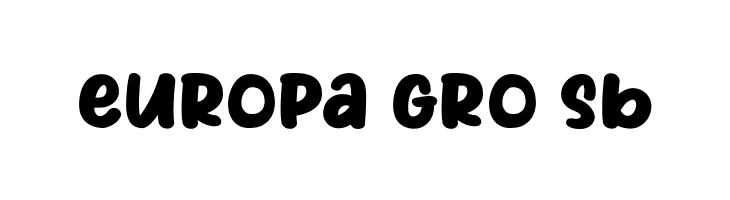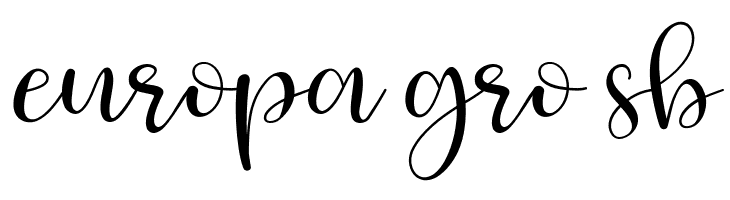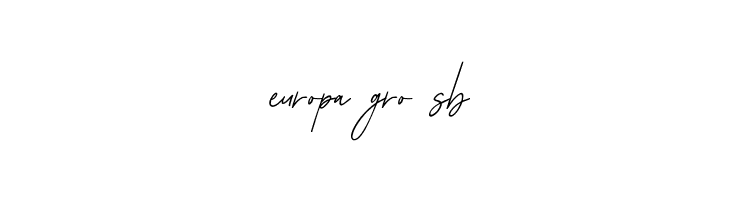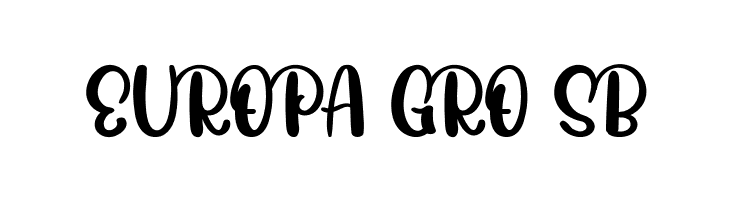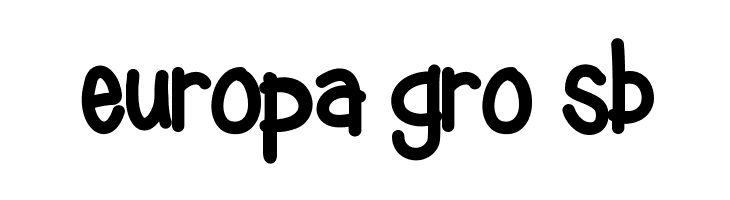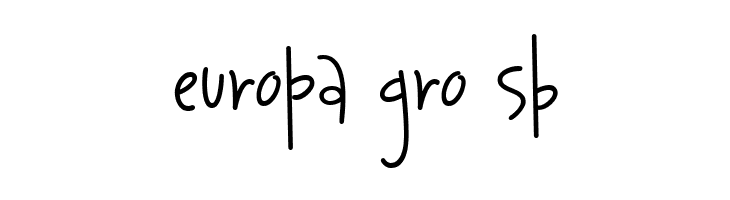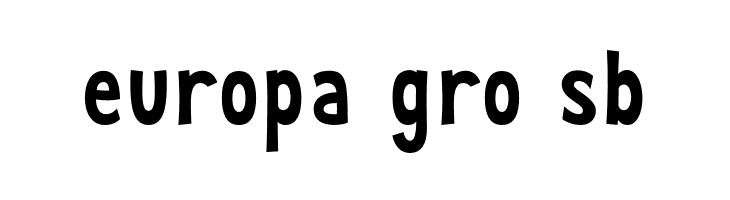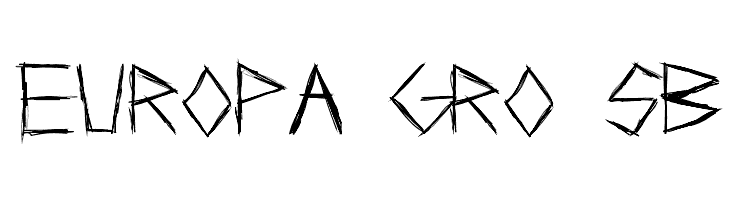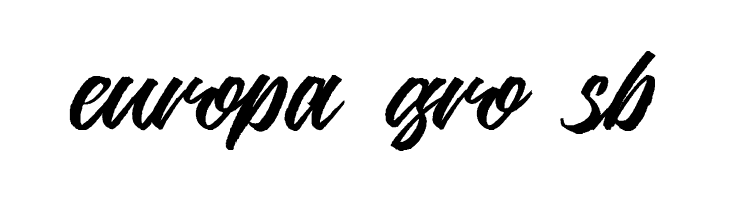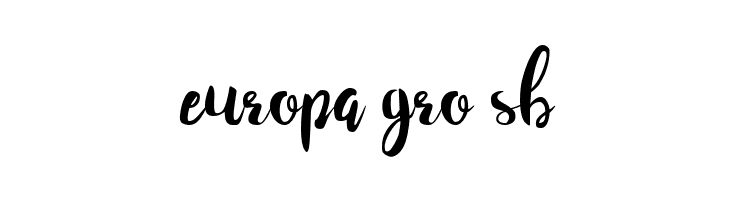
A casual, handwritten font with smooth, flowing lines and a playful touch.
A dynamic script font with calligraphic elegance and a handcrafted feel.
A lively script font with elegant flourishes and smooth, continuous strokes.
A playful, bold font with rounded, bubbly characters.
An elegant, whimsical script font with flowing, interconnected letters and playful loops.
A modern, handwritten font with a casual and flowing style.
A bold, playful font with rounded, hand-drawn characters.
A playful, bold font with rounded characters and a hand-drawn feel.
A bold, playful script font with a handwritten style.
A playful, bold, and rounded font with a hand-drawn, whimsical style.
A bold, playful handwritten font with thick strokes and rounded edges.
A playful, bold font with rounded, thick strokes and a hand-drawn feel.
A rugged, hand-drawn font with sharp, angular lines and a distressed look.
Playful handwritten font with bold strokes.
A playful, hand-drawn style font with bold, rounded characters.
A bold, expressive handwritten font with dynamic strokes and a playful style.
A smooth, brush-style script font with elegant, flowing characters.
A decorative cursive font with elegant loops and swirls.
A bold, slab serif font with high contrast and strong, authoritative character design.
A bold, classic serif font with high contrast and strong strokes.
A bold serif font with a classic and authoritative style.
An elegant, flowing script font with a handwritten aesthetic.
A bold, geometric font with a playful and dynamic style.
A whimsical and playful font with decorative curls and flourishes.
A lively and expressive script font with a modern, handwritten style.
A playful, bold font with thick, rounded strokes and a hand-drawn feel.
A bold, playful font with geometric shapes and a chunky style.
A playful, bold, and cartoonish font with a hand-drawn style.
A playful handwritten font with a casual and friendly style.
A fluid and elegant script font with smooth, flowing lines and a cursive style.